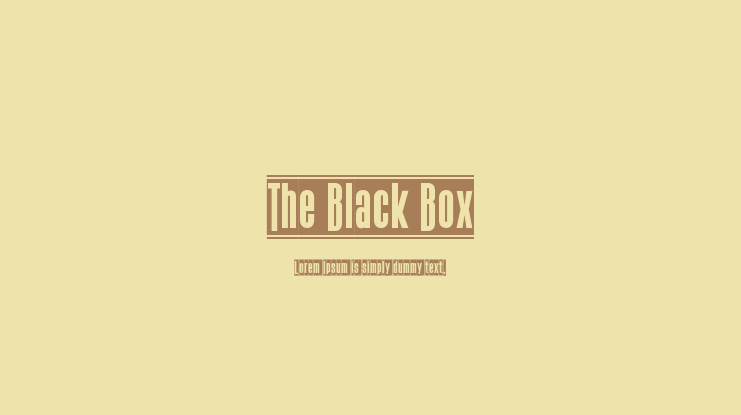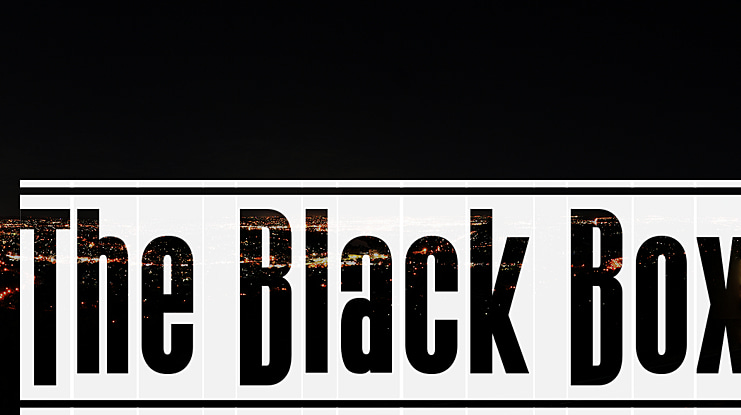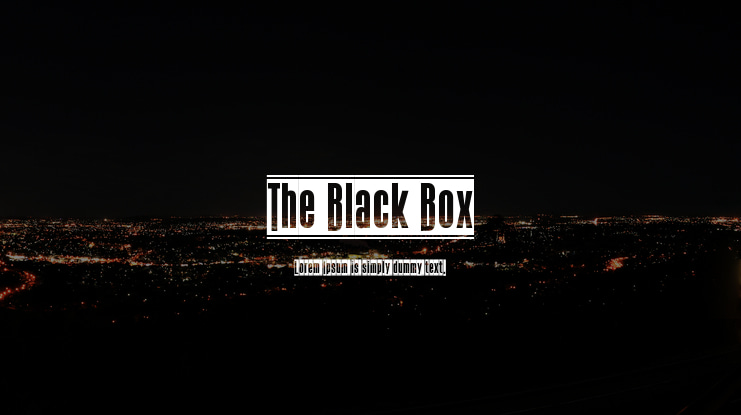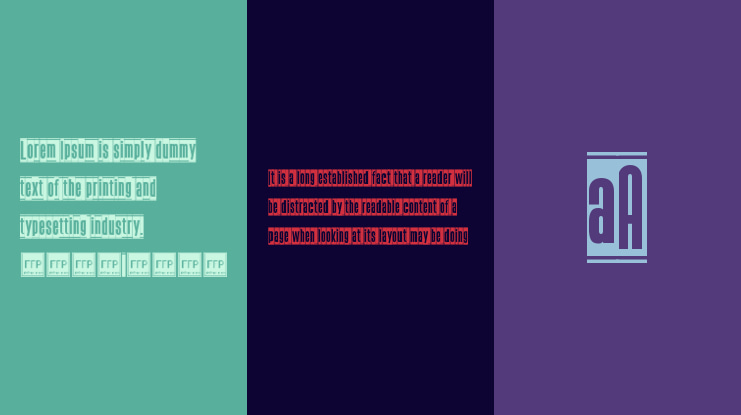
The Black Box Font Family
The Black Box is a negativ condensed sans font, surrounded by a frame, this frame builds a box with border, the font also contains 26 sets of box closures with 676 possible combinations to created great retro banners & ribbons.
Keys for basic ornaments: () [] {} |¬ _
Example: (The Black Box)
Bitcoin symbol (ligatures): b#